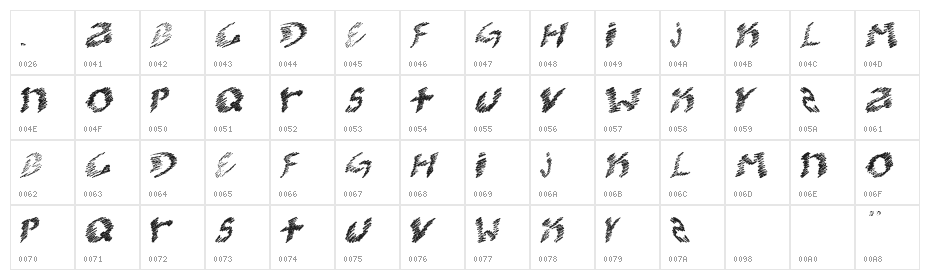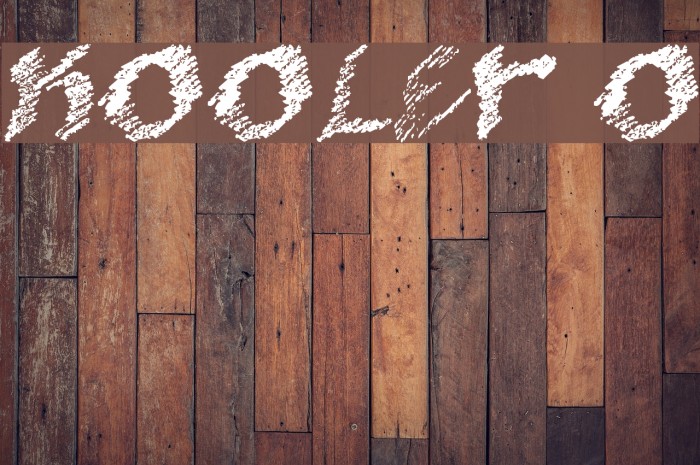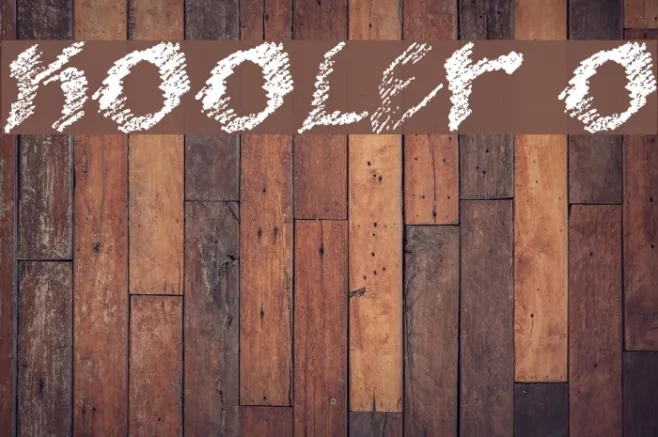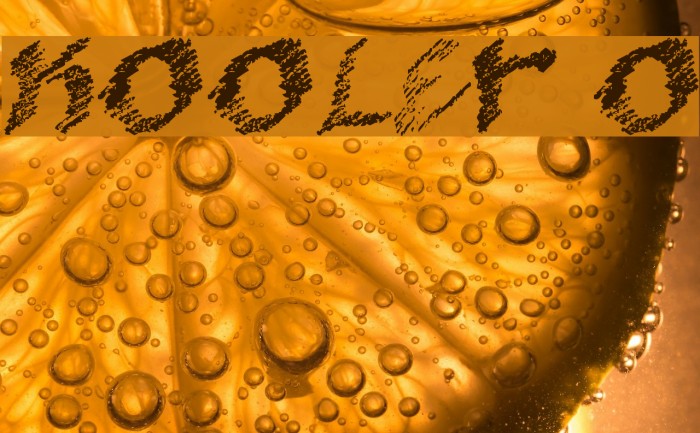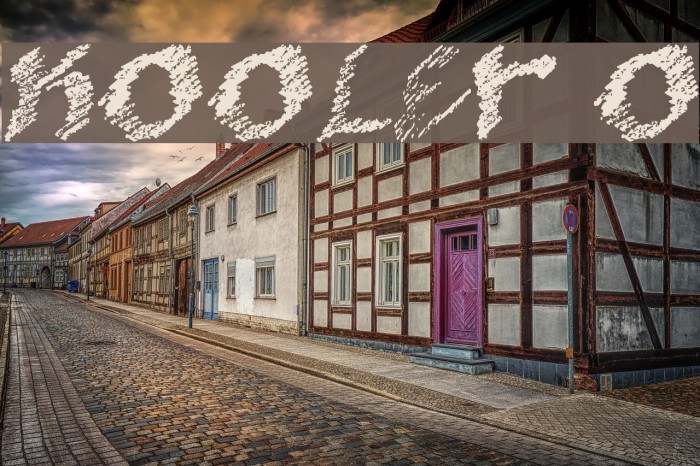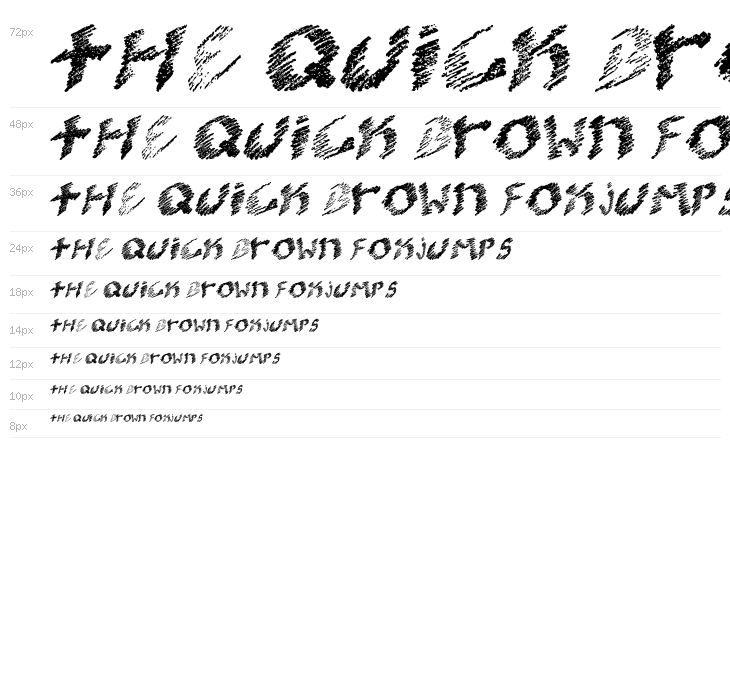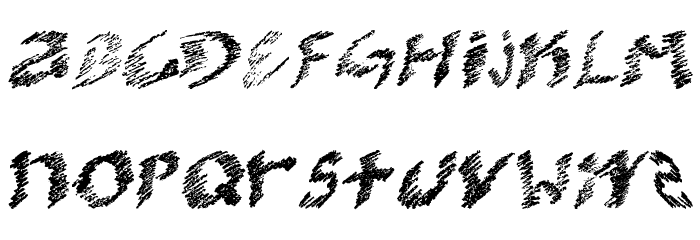
kooler O Font
kooler O Description
This font features a dynamic, textured appearance with a hand-drawn, sketch-like quality. Each character is composed of rough, jagged lines that create a sense of movement and energy. The irregular strokes give it a unique, artistic flair, making it stand out in any design. The uppercase and lowercase letters maintain a consistent style, with varying thicknesses that add depth and dimension. The numbers and special characters follow the same aesthetic, ensuring a cohesive look across all text elements.
Overall StyleArtistic, Energetic
Use CaseHeadlines, Posters, Artistic Designs
Proposed ProjectsIdeal for artistic projects, album covers, posters, and any design requiring a bold, creative touch.